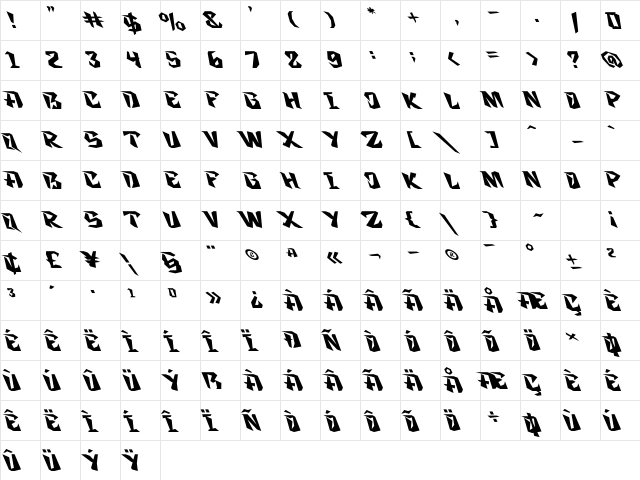
Zanden Tilted Regular
Design Context for Zanden Tilted Typeface
Zanden Tilted is a composed and adaptable typeface that performs quietly and consistently across a wide range of design contexts.
Pro Tip: Use Zanden Tilted in both headline and body roles to test its range before committing to a single application.